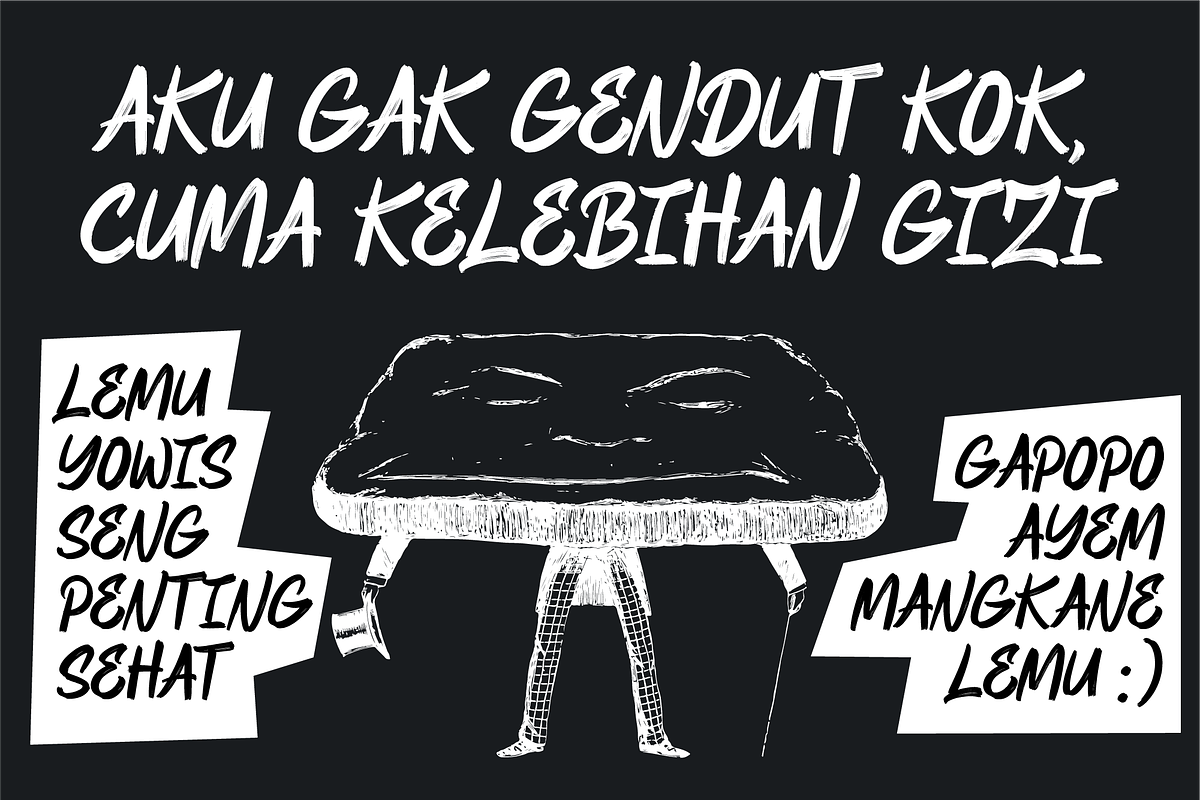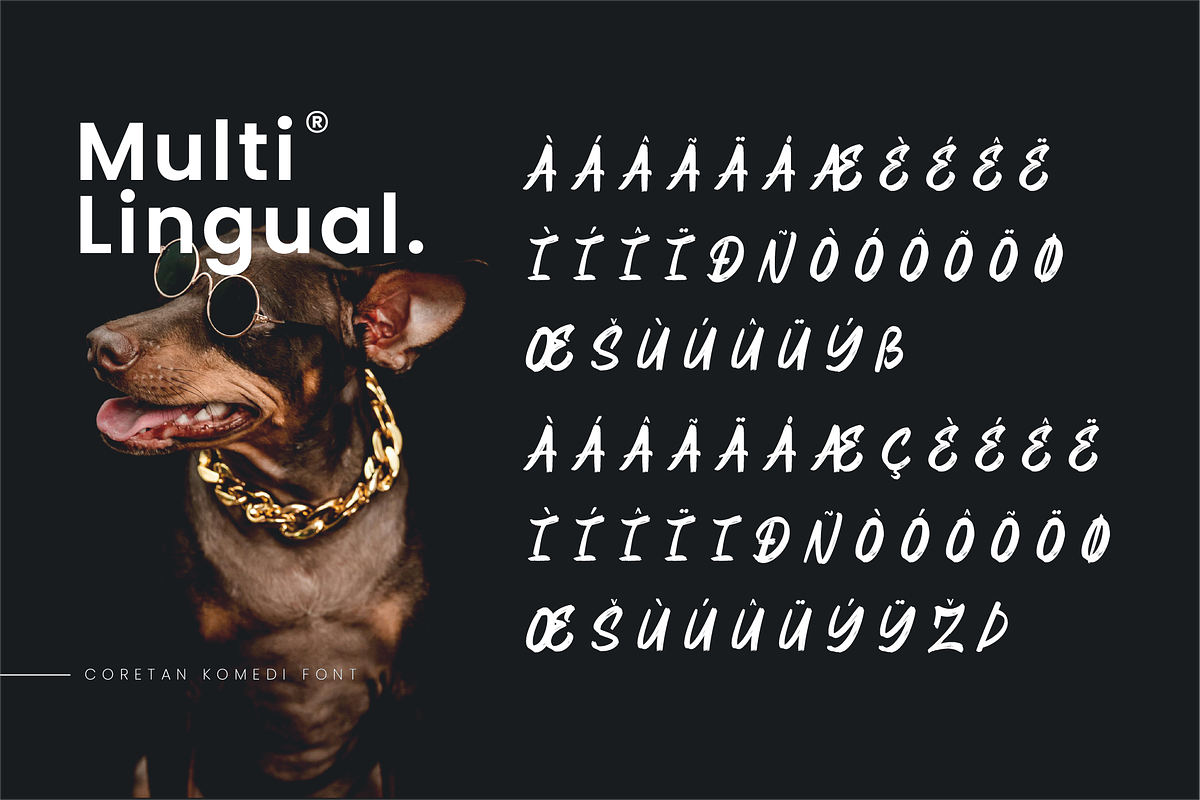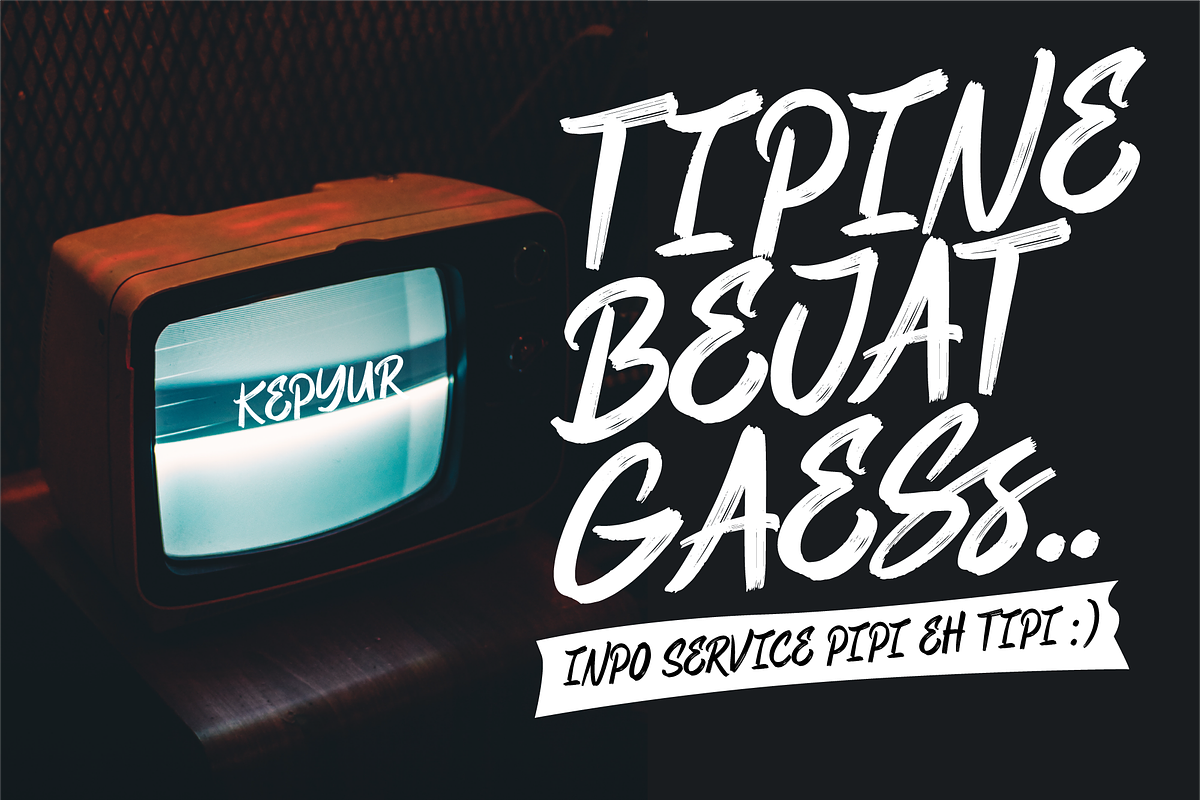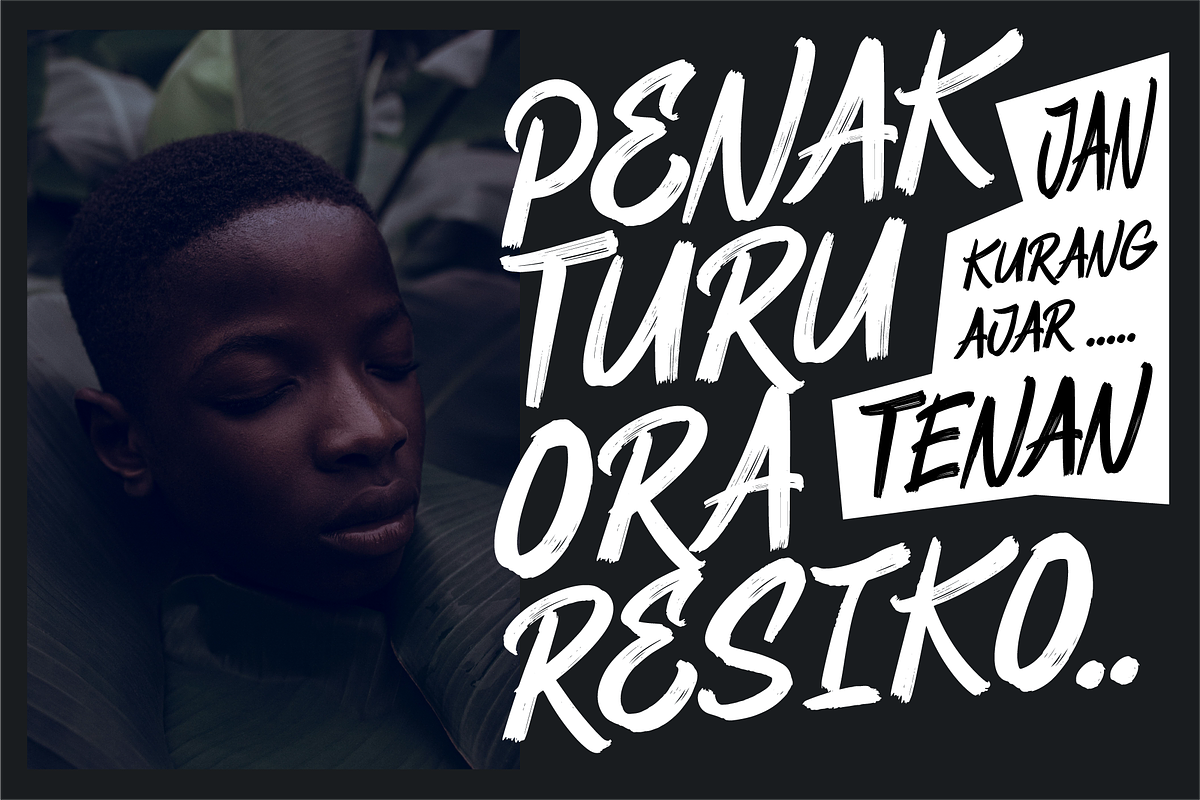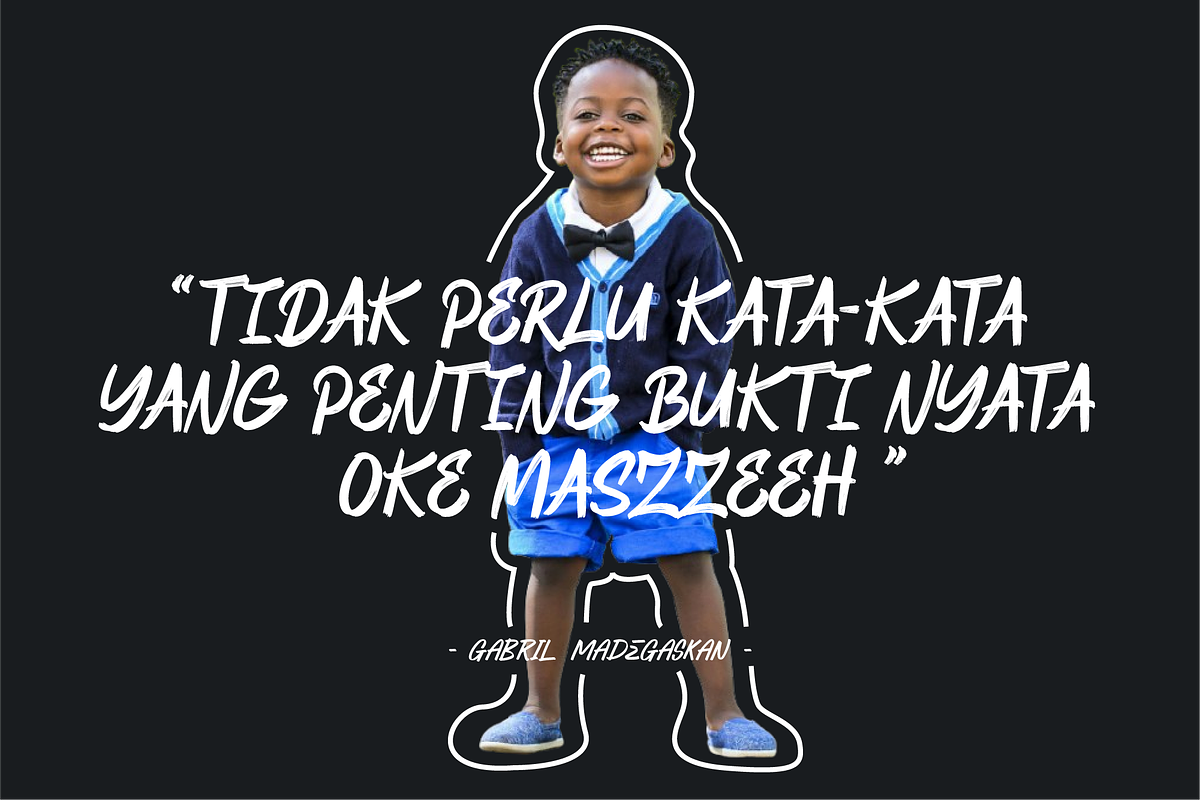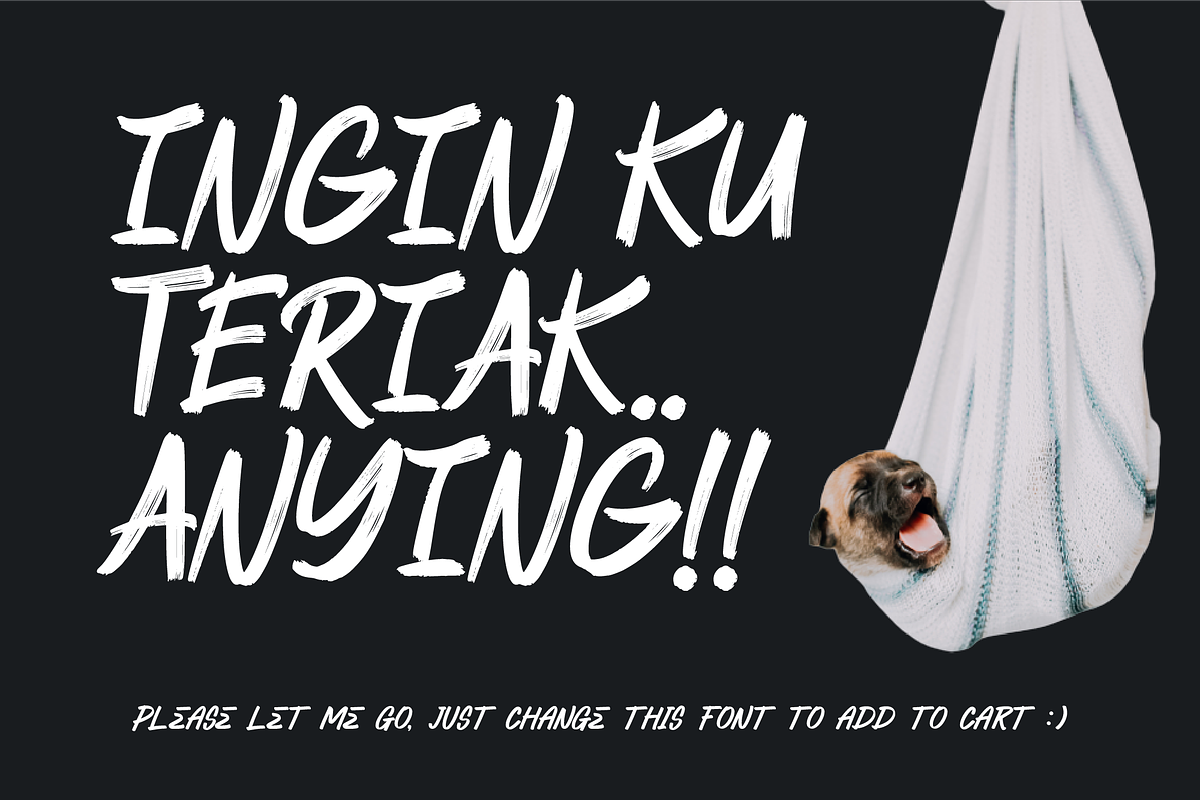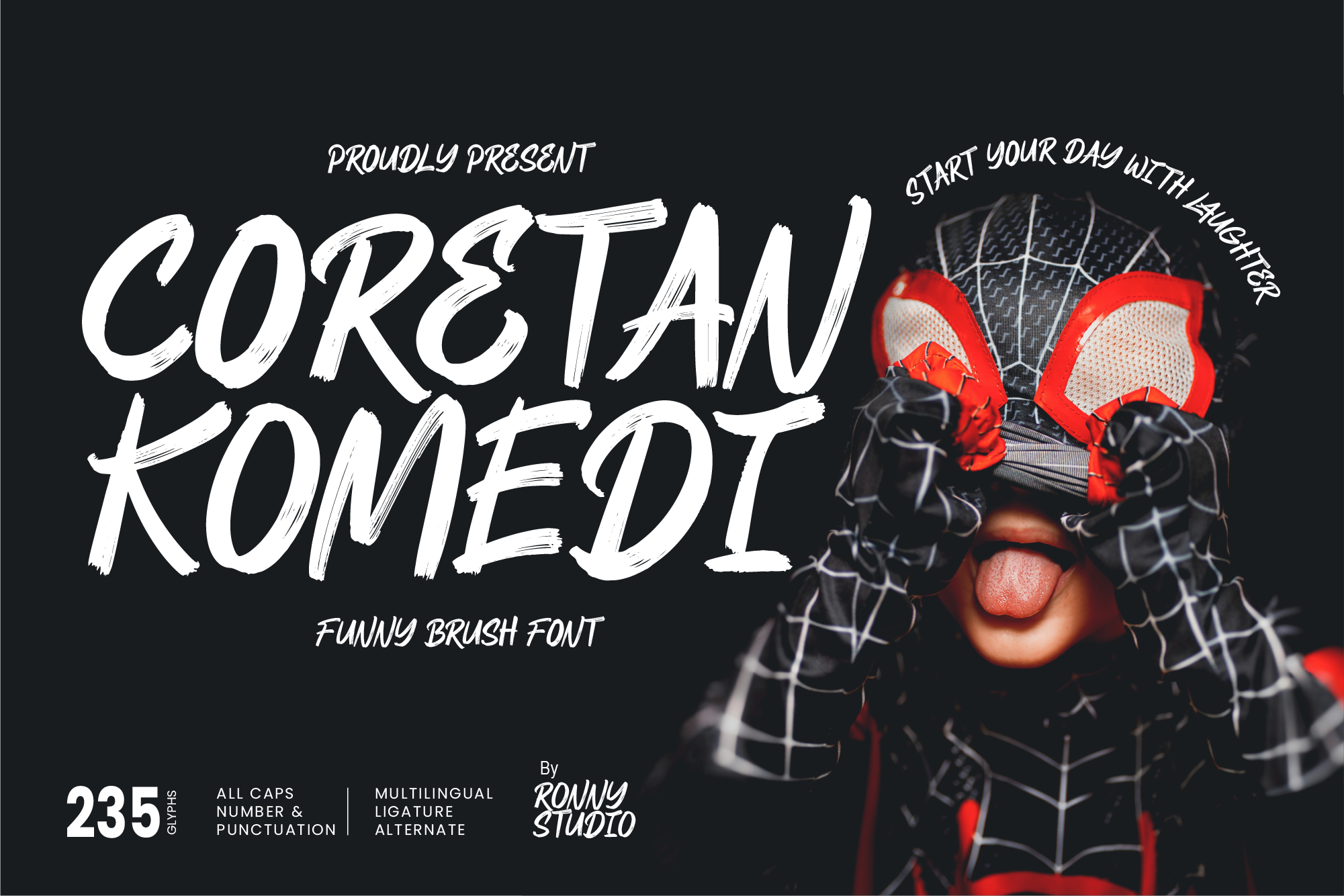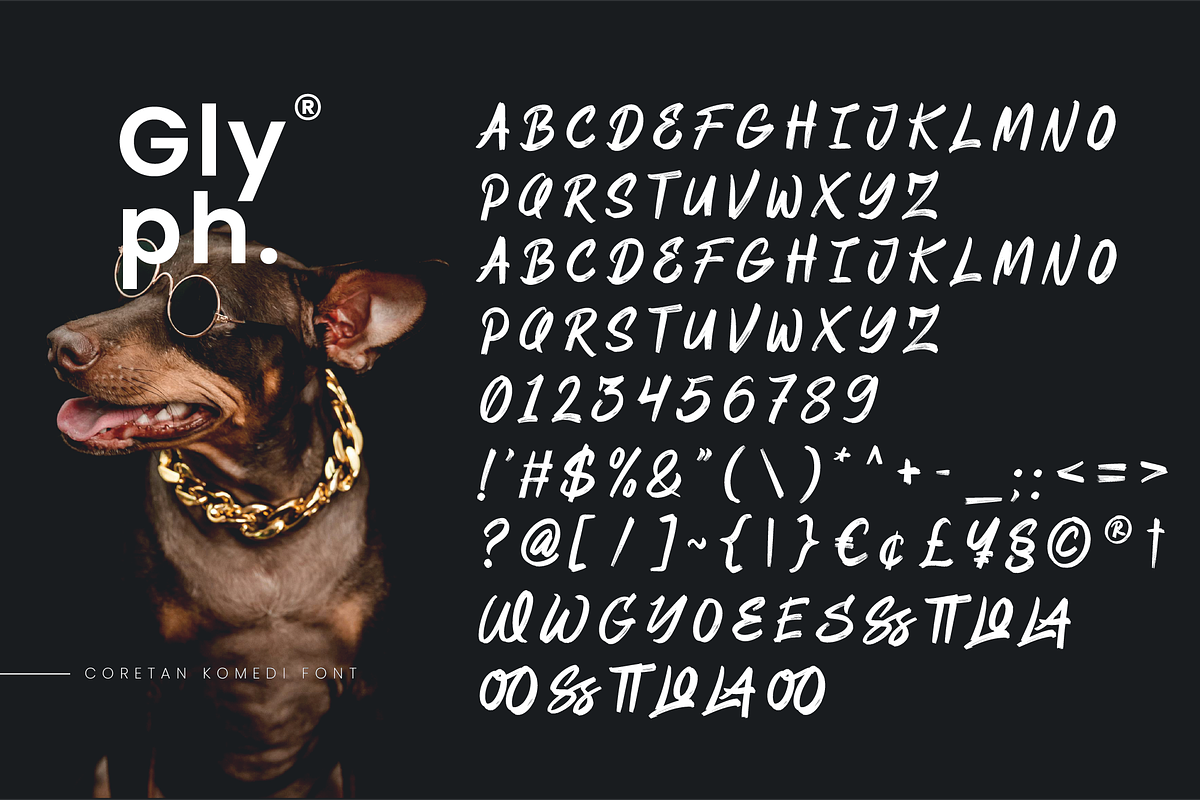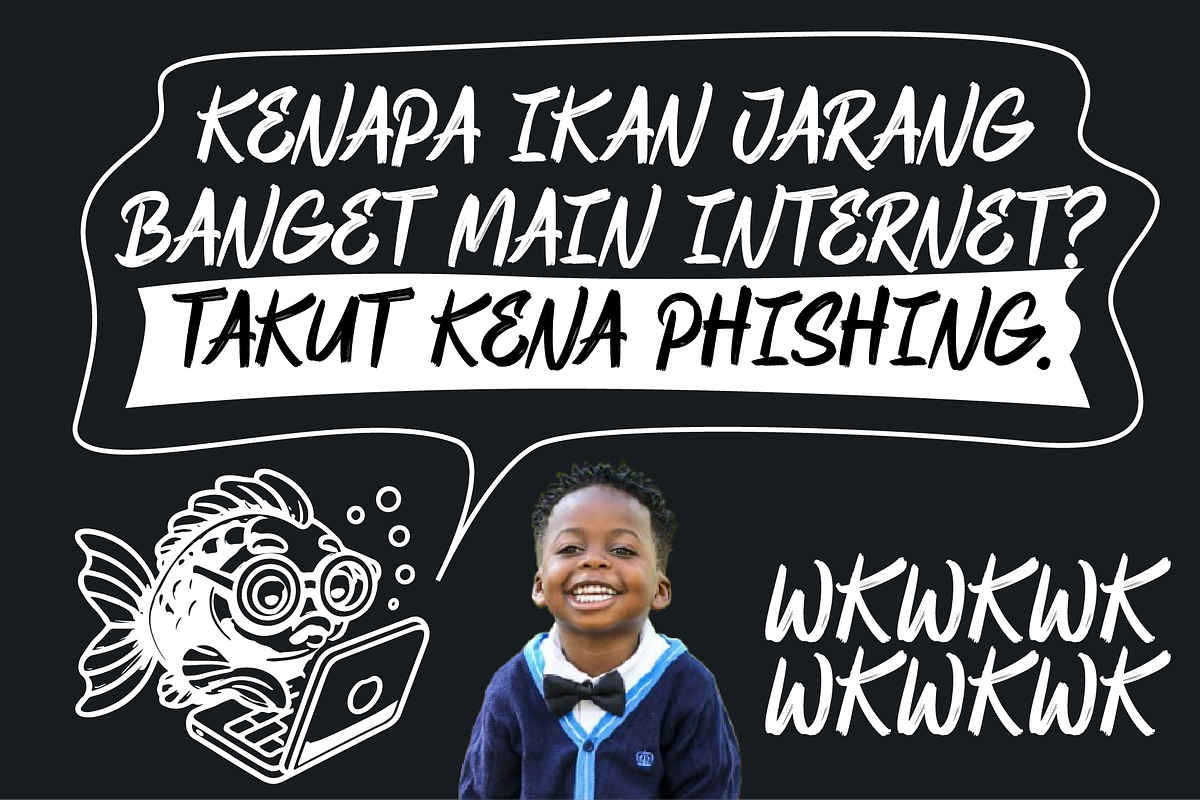
Coretan Komedi Fun Brush Comic Font
😂 Coretan Komedi is a funny brush font full of expression, joy, and energy! With 235 unique glyphs, this font is perfect for comics, memes, funny quotes, event posters, and social media content.
🔥 Why choose Coretan Komedi?
✅ Playful & Bold Brush Style – expressive look for humorous designs
✅ Ligatures & Multilingual Support – flexible for various languages
✅ Casual & Expressive Look – ideal for fun & creative branding
🎭 Perfect for:
✔ Funny Quotes & Meme Typography
✔ Comic Lettering & Webtoon Design
✔ Casual Branding & Social Media Content
✔ Event Posters, Merchandise & T-shirt Design
✔ YouTube Thumbnails & Playful Packaging
💡 Make your designs more fun and expressive with Coretan Komedi!